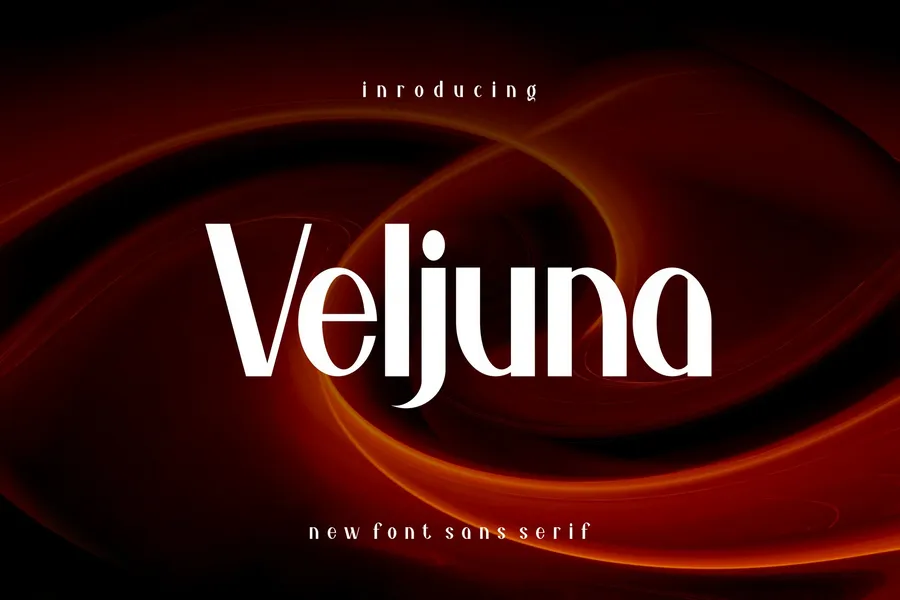
Veljuna – Sans Minimalist Elegant
Introducing our new product Veljuna – Sans Minimalist Elegant
Veljuna – Sans Minimalist Elegant Font is an awesome and authentic display font.